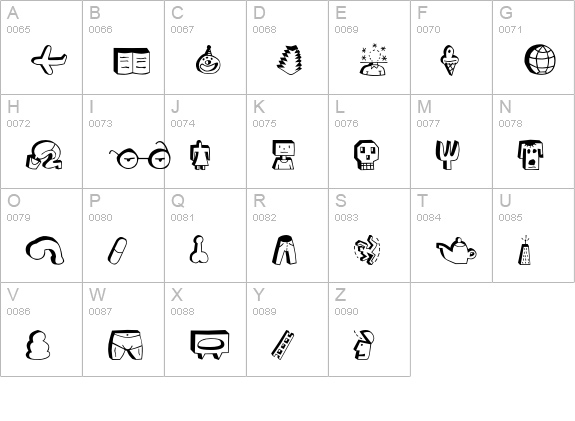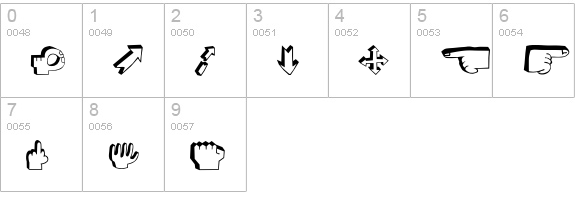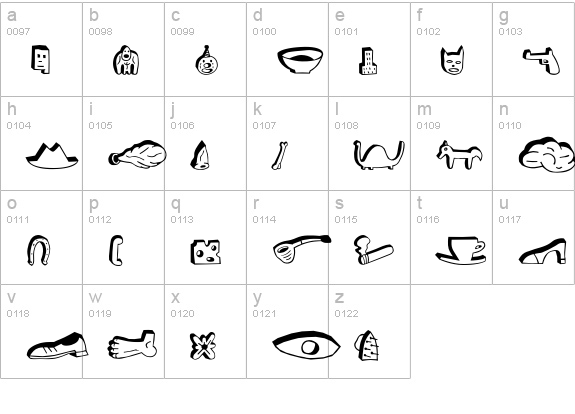
BlockheadIllustDarkSide Font Details
Introducing BlockheadIllustDarkSide font – a captivating and edgy typeface that exudes a mysterious and dark allure. This font is perfect for adding a bold and impactful touch to your designs, whether it be for posters, album covers, or branding projects. BlockheadIllustDarkSide font features intricate details and sharp edges that give it a unique and distinctive look. Its bold and commanding presence makes it ideal for projects that require a touch of drama and sophistication. The best part? BlockheadIllustDarkSide font is available for free download at FontsMarket.com! So you can easily add this striking font to your collection without any cost. Don't miss out on the opportunity to enhance your designs with the captivating BlockheadIllustDarkSide font today!